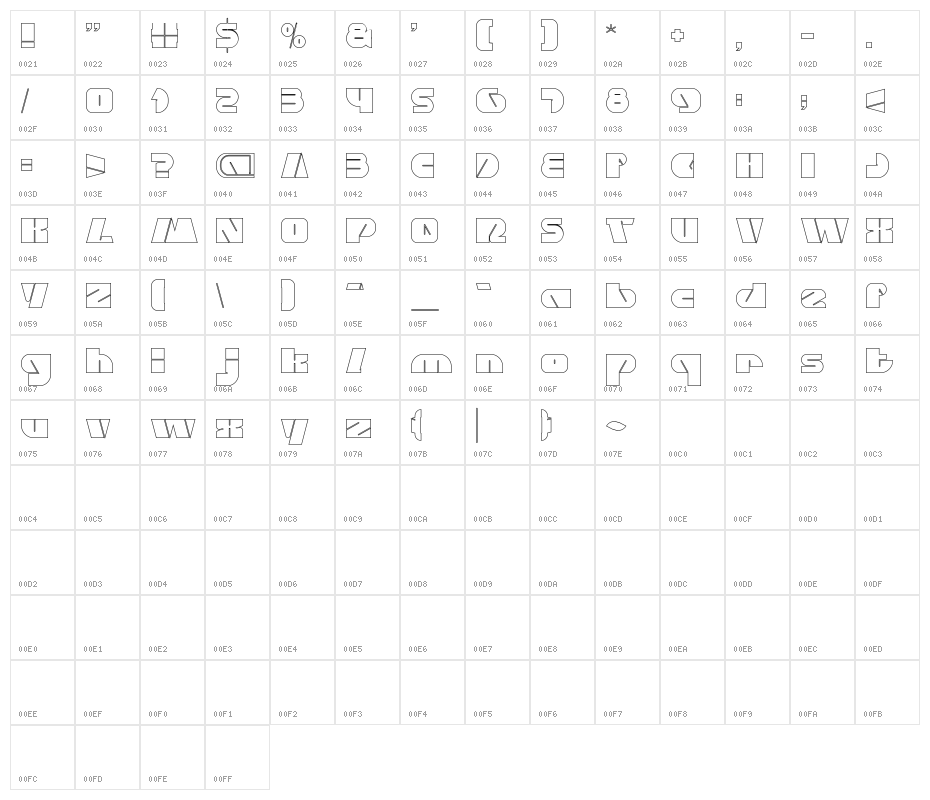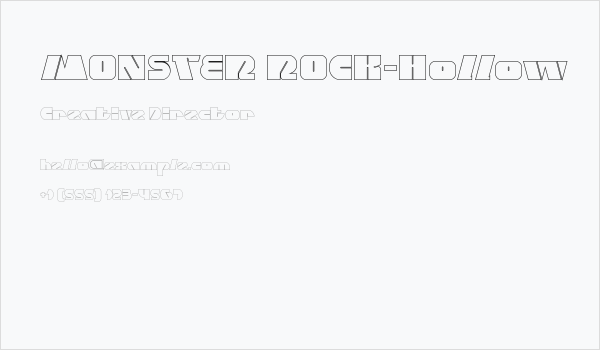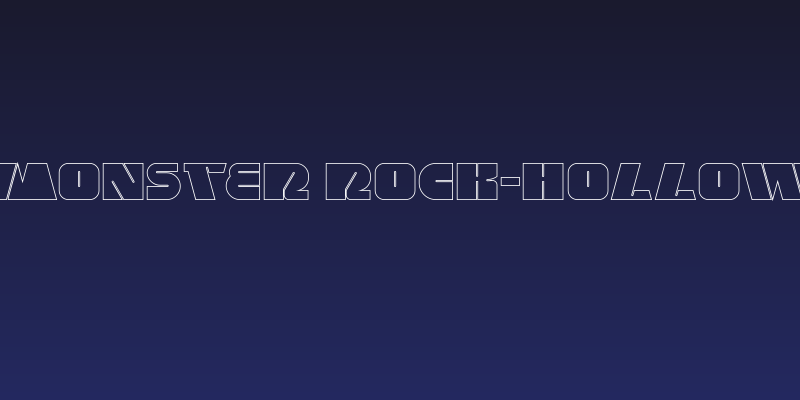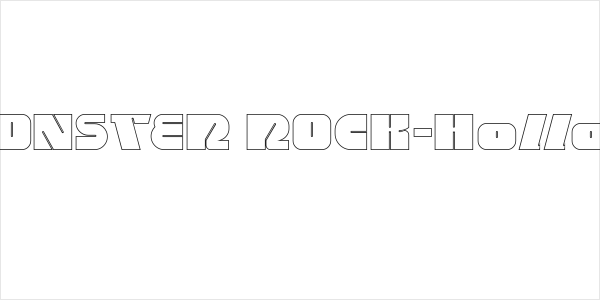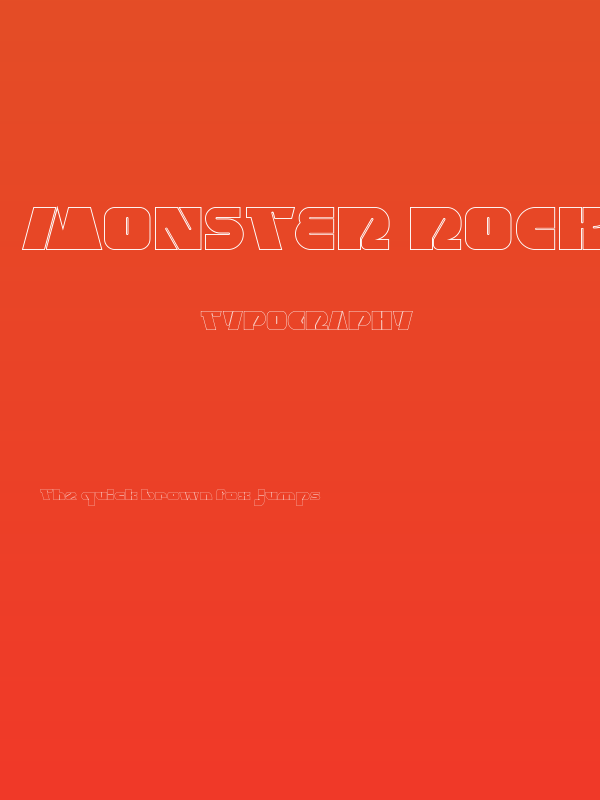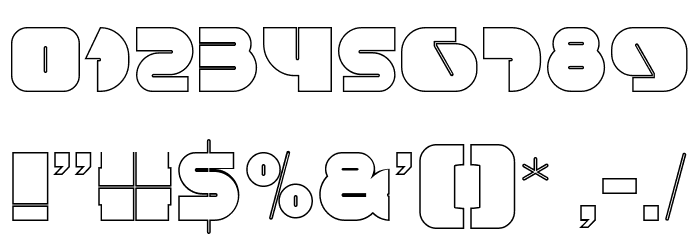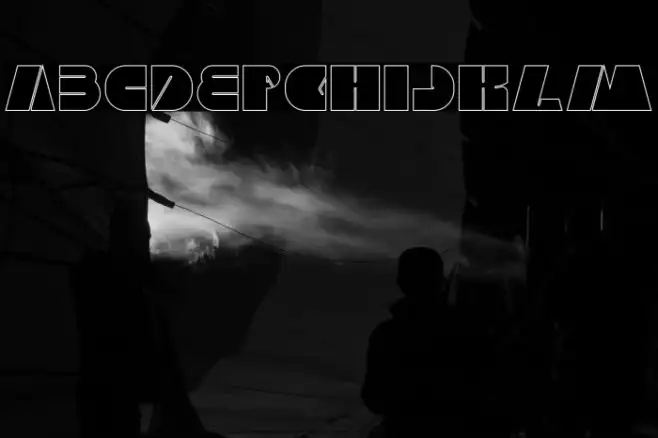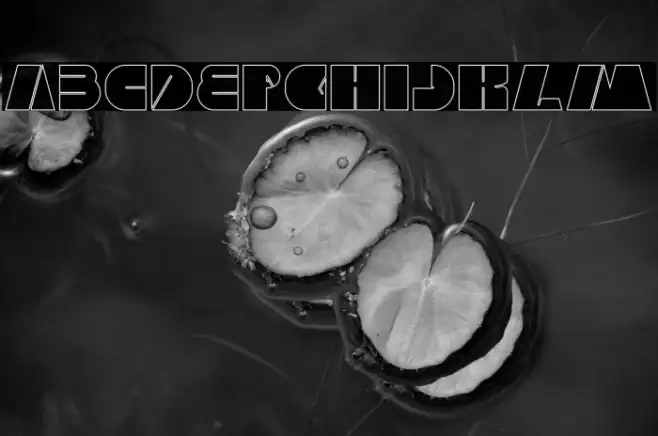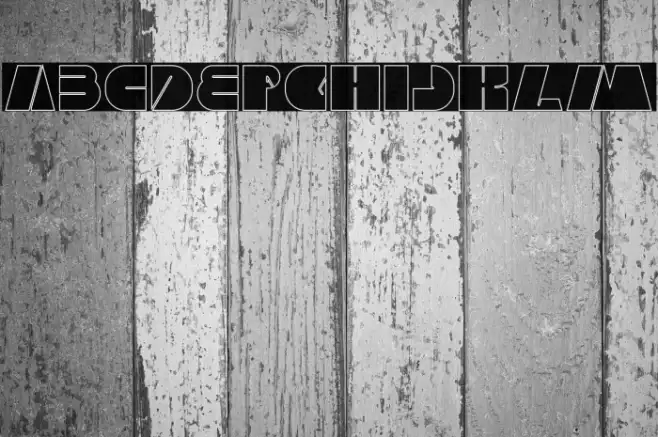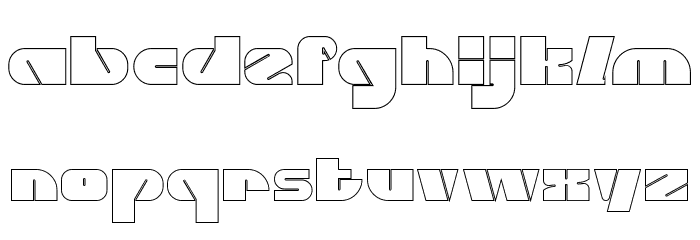
MONSTER ROCK-Hollow Font
MONSTER ROCK-Hollow Description
This font features a bold, geometric design with hollow interiors, creating a striking and modern appearance. The characters are constructed with thick, angular lines and sharp edges, giving them a futuristic and industrial feel. The uppercase and lowercase letters maintain a consistent style, with the lowercase being slightly more rounded. Numbers and special characters follow the same design principles, ensuring uniformity across all glyphs. The hollow nature of the font adds a unique dimension, making it ideal for eye-catching displays.
| Proposed Projects | Ideal for branding, posters, album covers, and any project requiring a bold, futuristic aesthetic. |